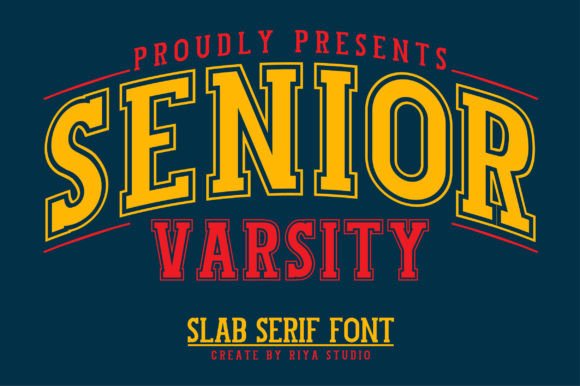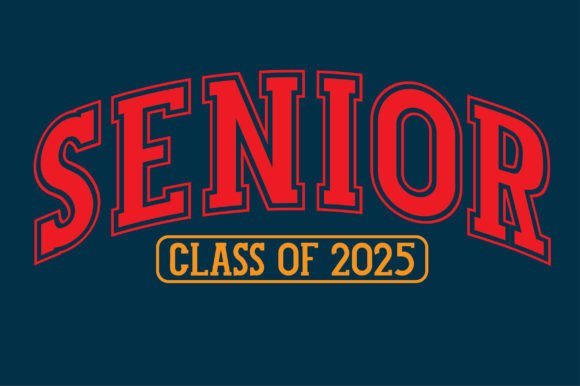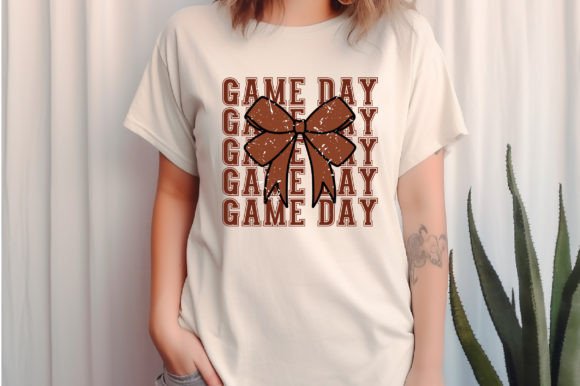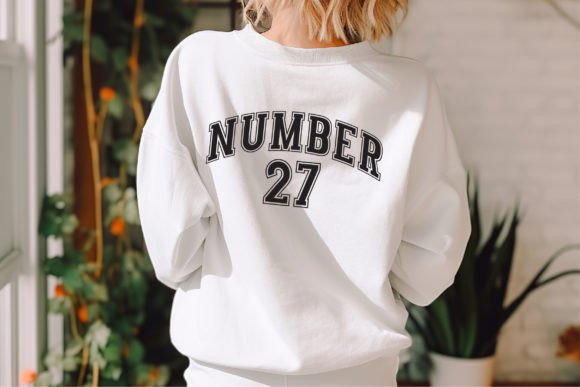
Senior Varsity Font
About the Senior Varsity Font
Crafted with precision, the Senior Varsity Font is ready to bring your ideas to life. The Senior Varsity font is inspired by college and sports. Each of its letters is compatible with it. Perfect for sports enthusiasts and college fans, such as logotypes, watermarks, posters, branding, promotions, product packaging, team jerseys, party invitations, home decor items, etc. This font is sure to make a bold statement.
Senior Varsity Font Usage Examples
Senior Varsity Font Example